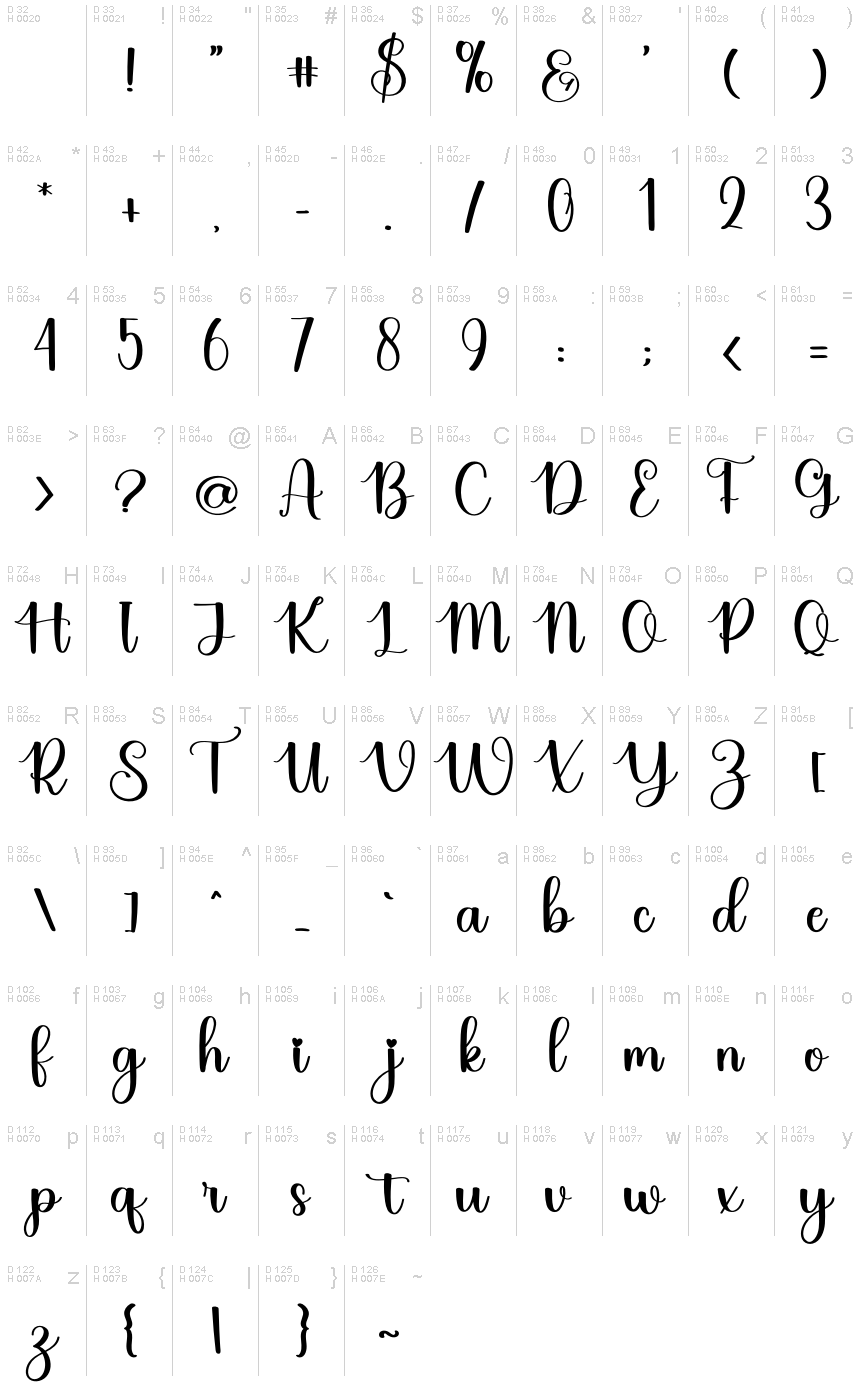
Sweet Barbie
Sweet Barbie font is a modern calligraphy script from Inermedia Studio with flowing lines that have moderate contrast and rounded shapes that express an elegant mood sprinkled with playful elements and heart accents throughout. This font is perfect for an elegant & luxury logo, book or movie title design, fashion brand, magazine, clothes, lettering, quotes, and so much more.
The use cases include beautiful wedding invitations. There are many industries that are perfectly suited to advertise using this font including food & drink brands and suppliers. The unique combination of elements still allows synergy between other fonts within a branding campaign in both larger displays as well as small body text within any design.